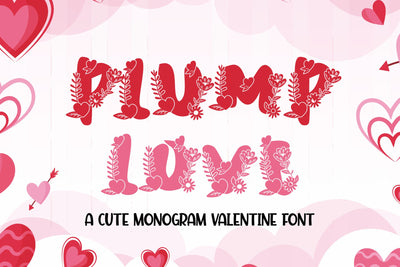
Plump Love Monogram - A Love and Floral Valentine Font
"Plump Love Monogram" is a monogram display font adorned with flower and love decorations within each character. This font is ideal for Valentine-themed projects, adding a touch of romance and charm. The inclusion of floral and love-inspired elements enhances its suitability for designs associated with love, weddings, or any project aiming to convey a romantic atmosphere.